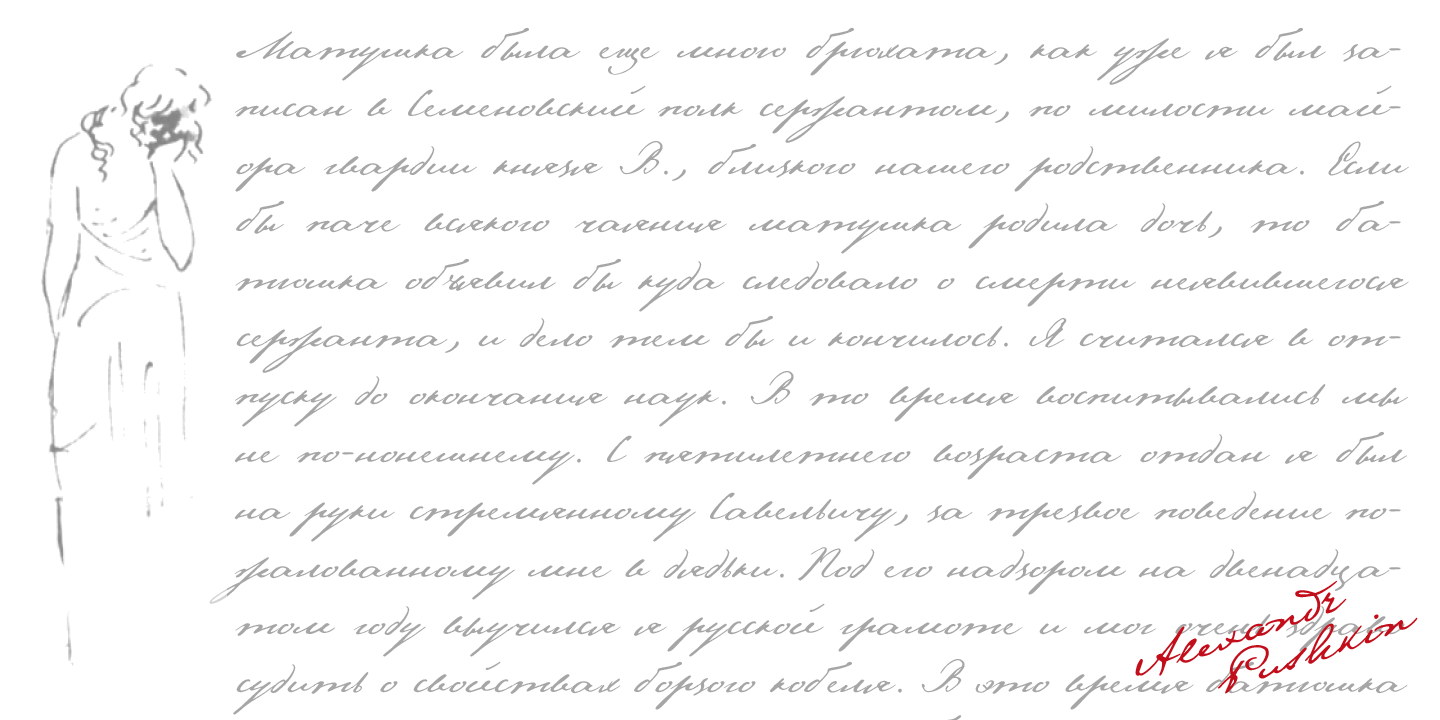
Pushkin Font is ideal for literary publications, poetry collections, classical book covers, cultural magazines, museum exhibitions, theatrical programs, artistic branding, vintage-inspired designs, and sophisticated editorial projects. This elegant typeface brings literary sophistication, cultural heritage, and romantic expressiveness to any project celebrating the arts, literature, and classical refinement.
What makes Pushkin Font exciting is its masterful capture of romantic literary tradition combined with timeless typographic elegance that evokes the golden age of literature and poetry. The font features graceful letterforms with refined proportions, subtle flourishes, and carefully balanced character spacing that creates a sense of rhythm and flow reminiscent of classical verse. Its poetic character embodies the intellectual beauty and emotional depth associated with great literary works, making it perfect for projects that honor cultural heritage and artistic expression.
The Pushkin Font family typically includes regular and italic weights with distinctive uppercase and lowercase letters, elegant numerals, and comprehensive punctuation marks. The design maintains classical typography principles while providing modern functionality for contemporary publishing and design applications that require literary sophistication and cultural authenticity.
Whether you're publishing literary works or creating culturally-inspired brand identities, Pushkin Font Free Download offers unmatched artistic elegance and literary authenticity. This typeface excels in both extended reading applications and display settings, maintaining its poetic character across all sizes and formats. Its cultural appeal makes it particularly effective for publishing houses, cultural institutions, and premium brands that want to associate with intellectual sophistication and artistic heritage. The font's romantic presence helps create memorable reading experiences that honor the enduring beauty of literature while ensuring optimal readability and emotional engagement.